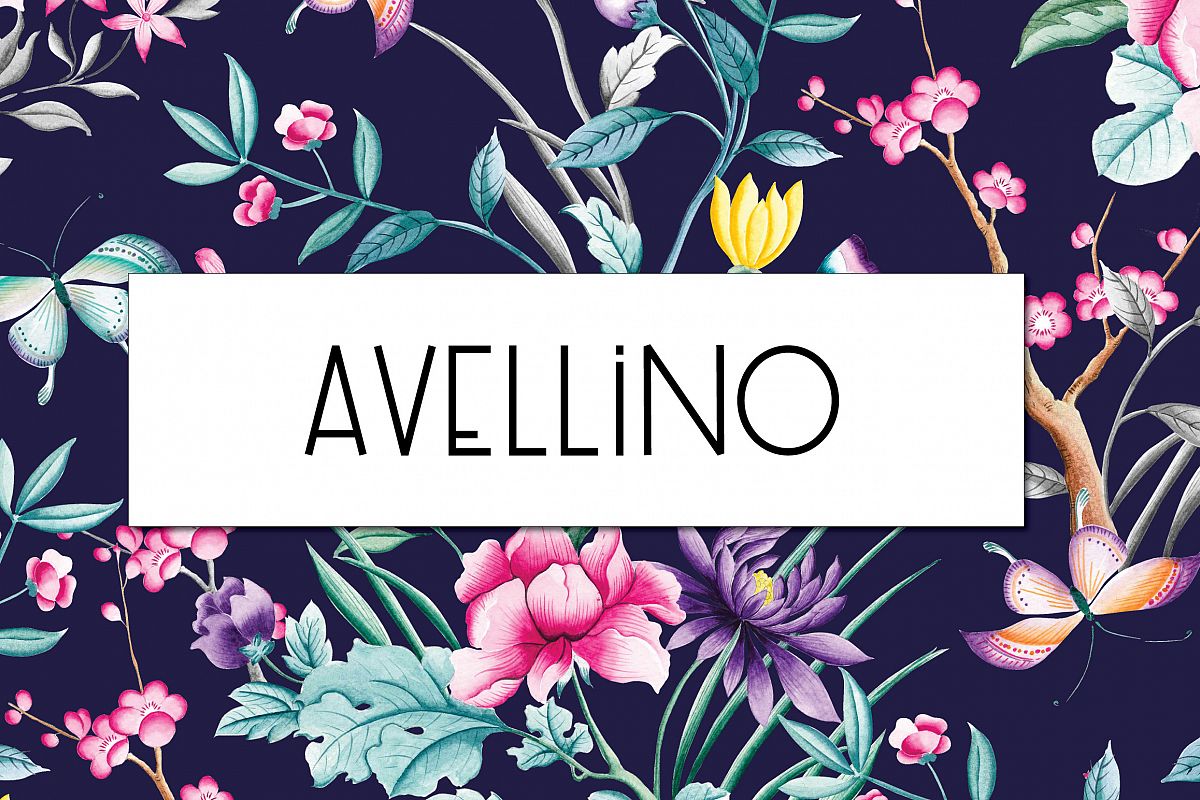
Avellino | Multilingual Sans Serif
Avellino
Avellino is a start of something new, it's my dream font. Extremely elegant and classy with an art deco touch.
With extensive language support, there are so many possibilities to create something great with it.
Perfect for logo design, poster design, longer texts, for blogs and much more!